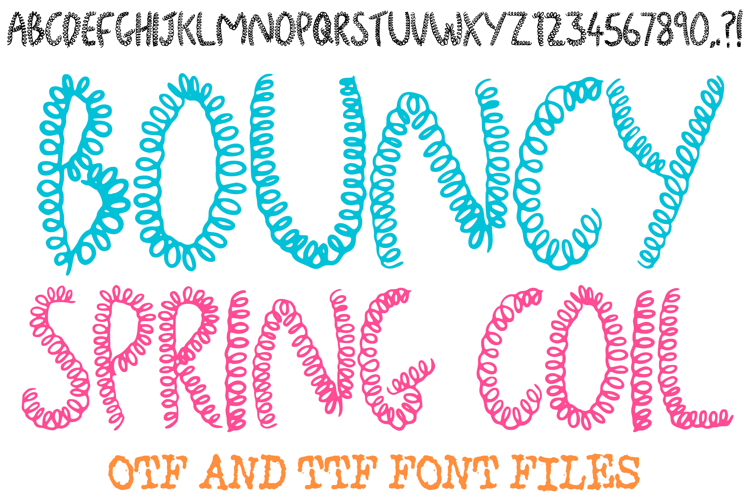
Bouncy Spring Coil Font Spring Loops Typography Lettering
Put a spring in your step with the Bouncy Spring Coil Font! This charmingly unique display typeface is crafted from a delicate, tightly coiled line that creates a playful "slinky" or "wireframe" effect for every character. Its airy, whimsical aesthetic is perfect for designs that need to feel lighthearted, energetic, and full of motion.
Capturing a fun, "sketchbook" vibe, this font is ideal for creators looking for a decorative headline style that stands out with its intricate, circular loop construction. Whether you are designing for a modern boutique, a playful party invitation, or quirky social media content, the Bouncy Spring Coil Font offers a handcrafted look that is both professional and artistic.